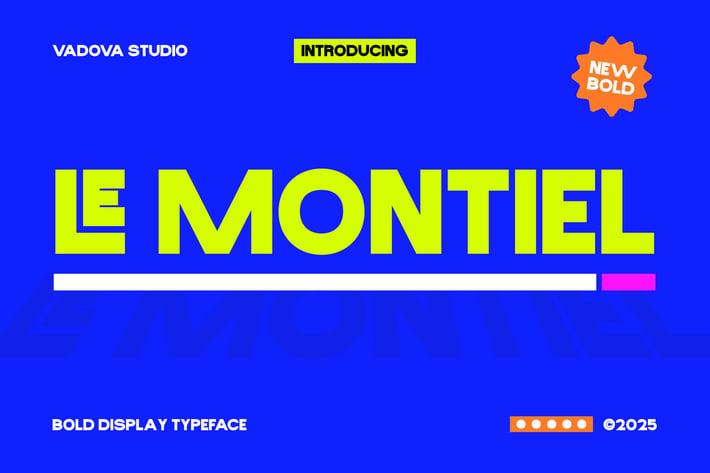
Le Montiel Sans Serif Font
Le Montiel is a strong display sans serif typeface designed for bold communication and trend-forward designs. Its compact shapes, thick strokes, and stylish ligatures make it perfect for fashion editorials, Gen Z branding, social media graphics, web hero banners, cosmetics packaging, modern magazines, and creative portfolios. The font includes uppercase, numerals, punctuation, multilingual support, and high-impact glyphs crafted to perform across both digital and print mediums where attention is everything. Whether you're creating a new-age cover or branding a lifestyle label, Le Montiel delivers punch and polish.
Uppercase & Lowercase characters
* Numeral & Punctuations